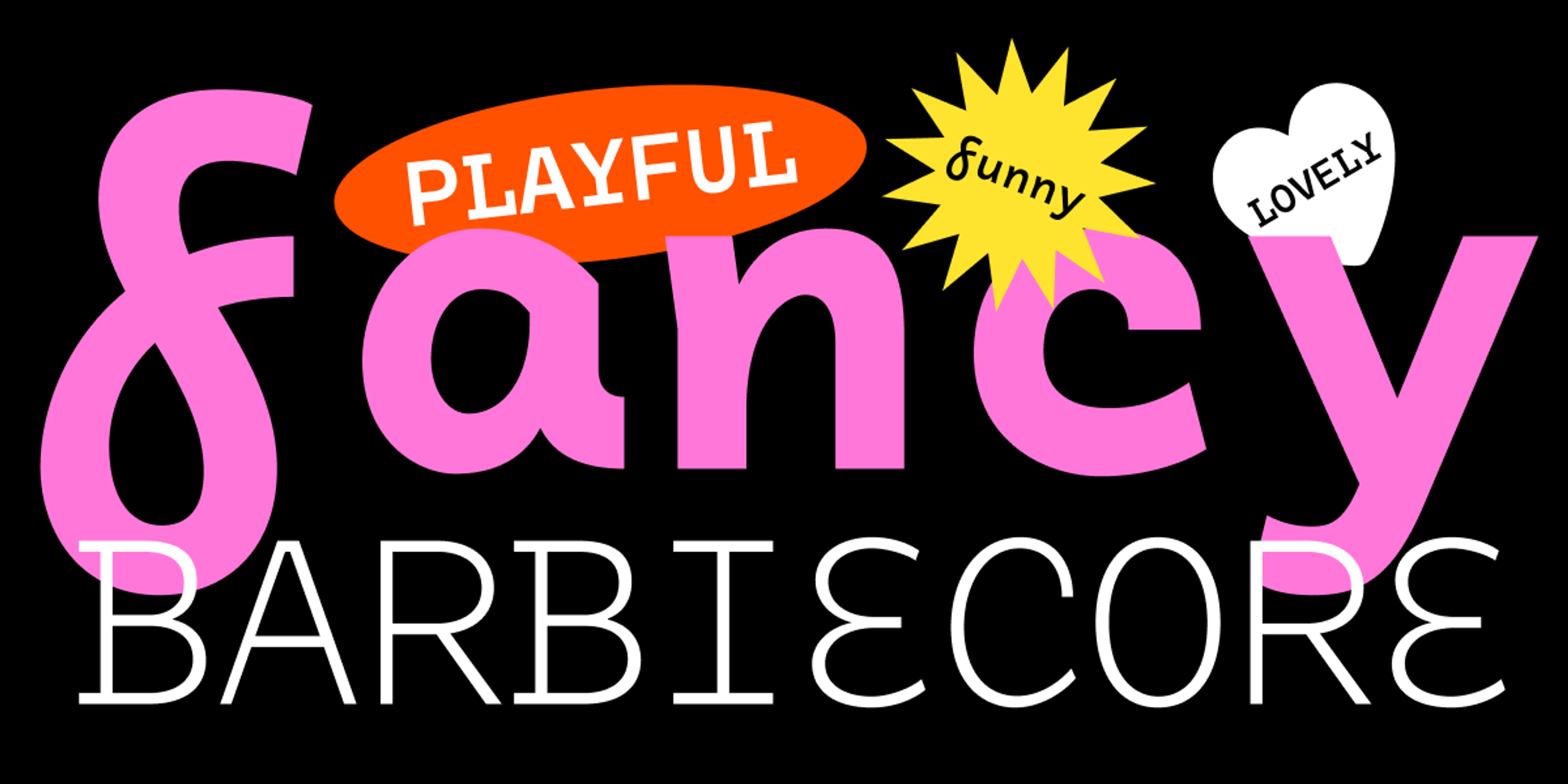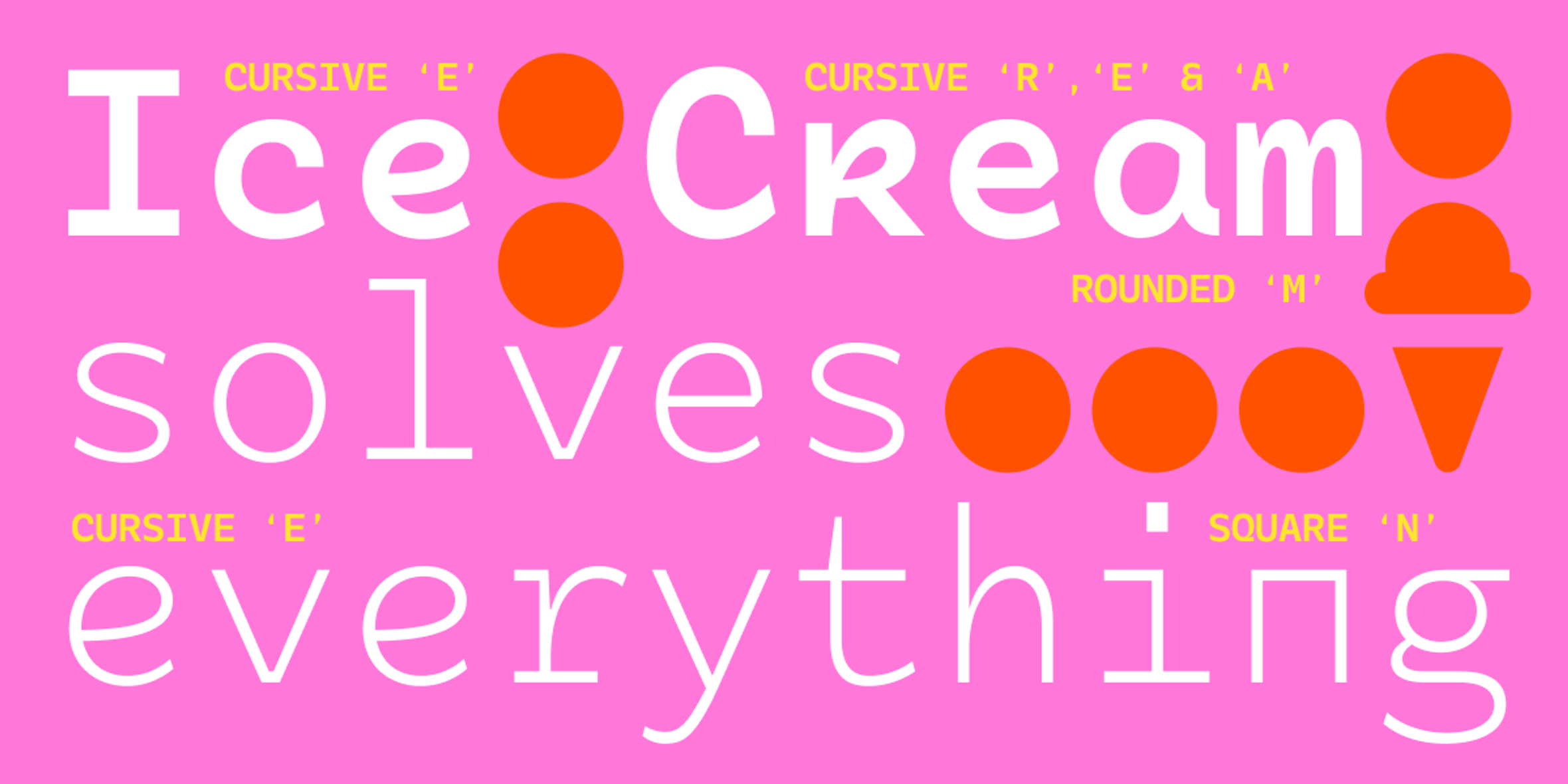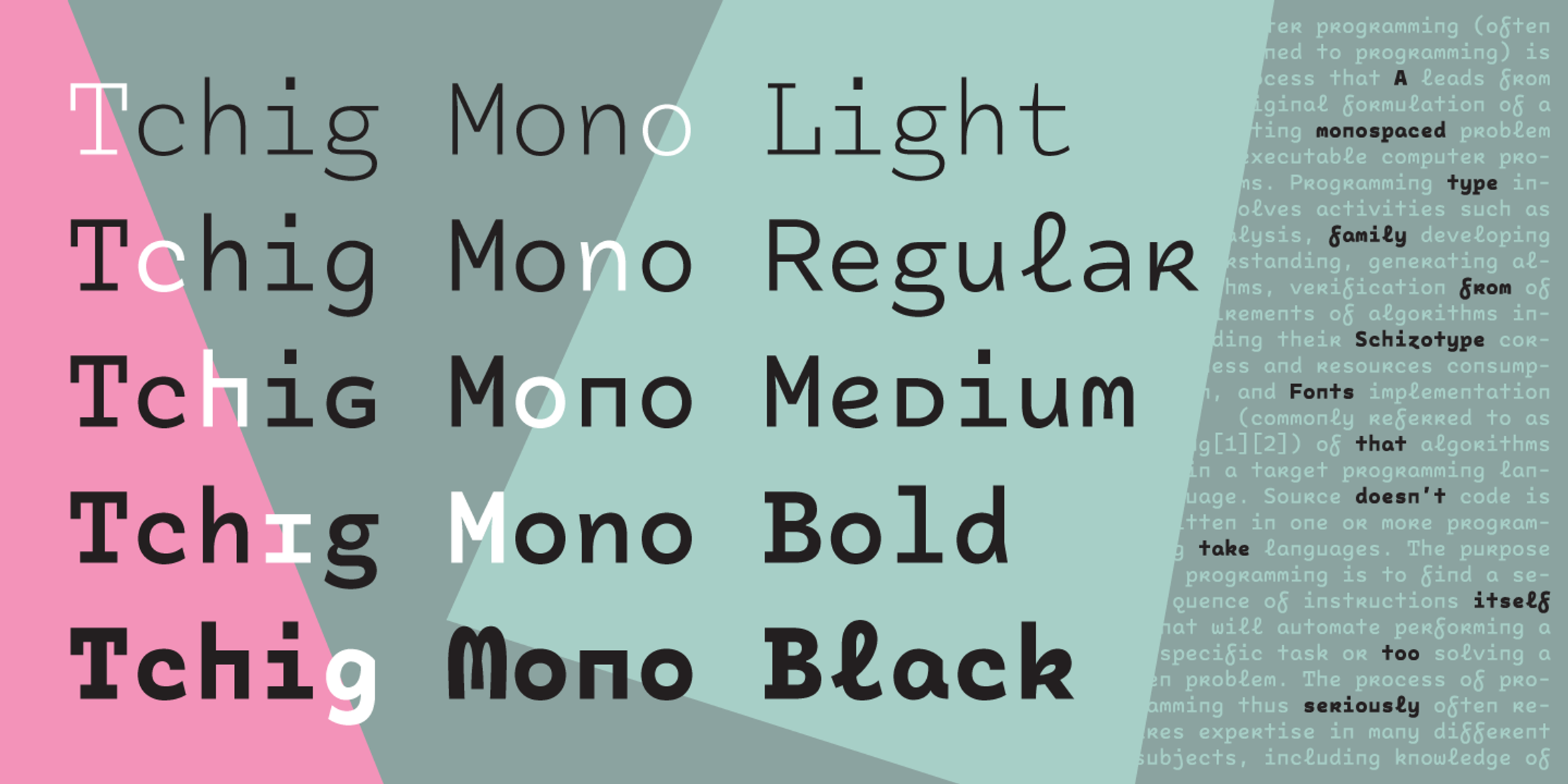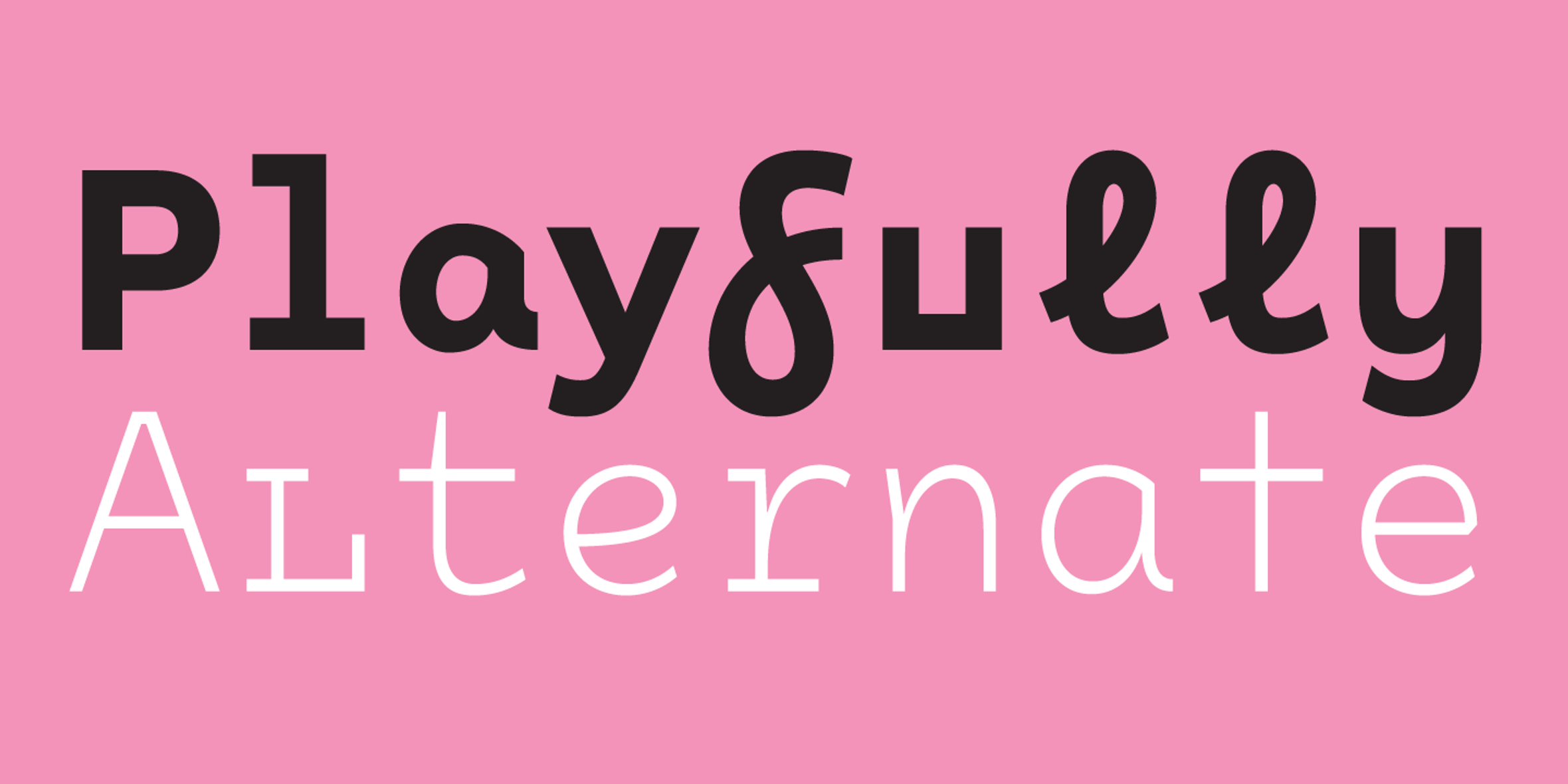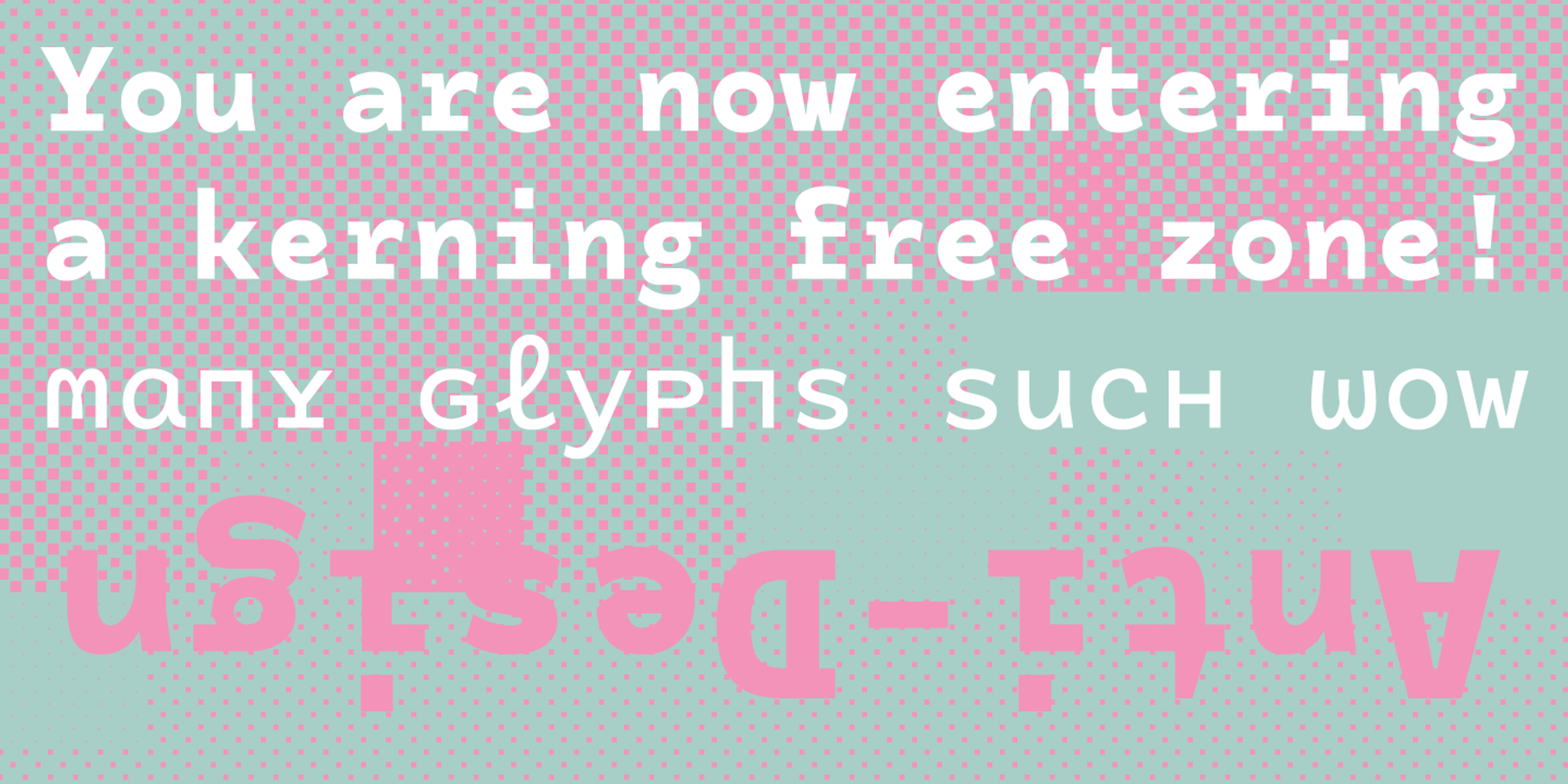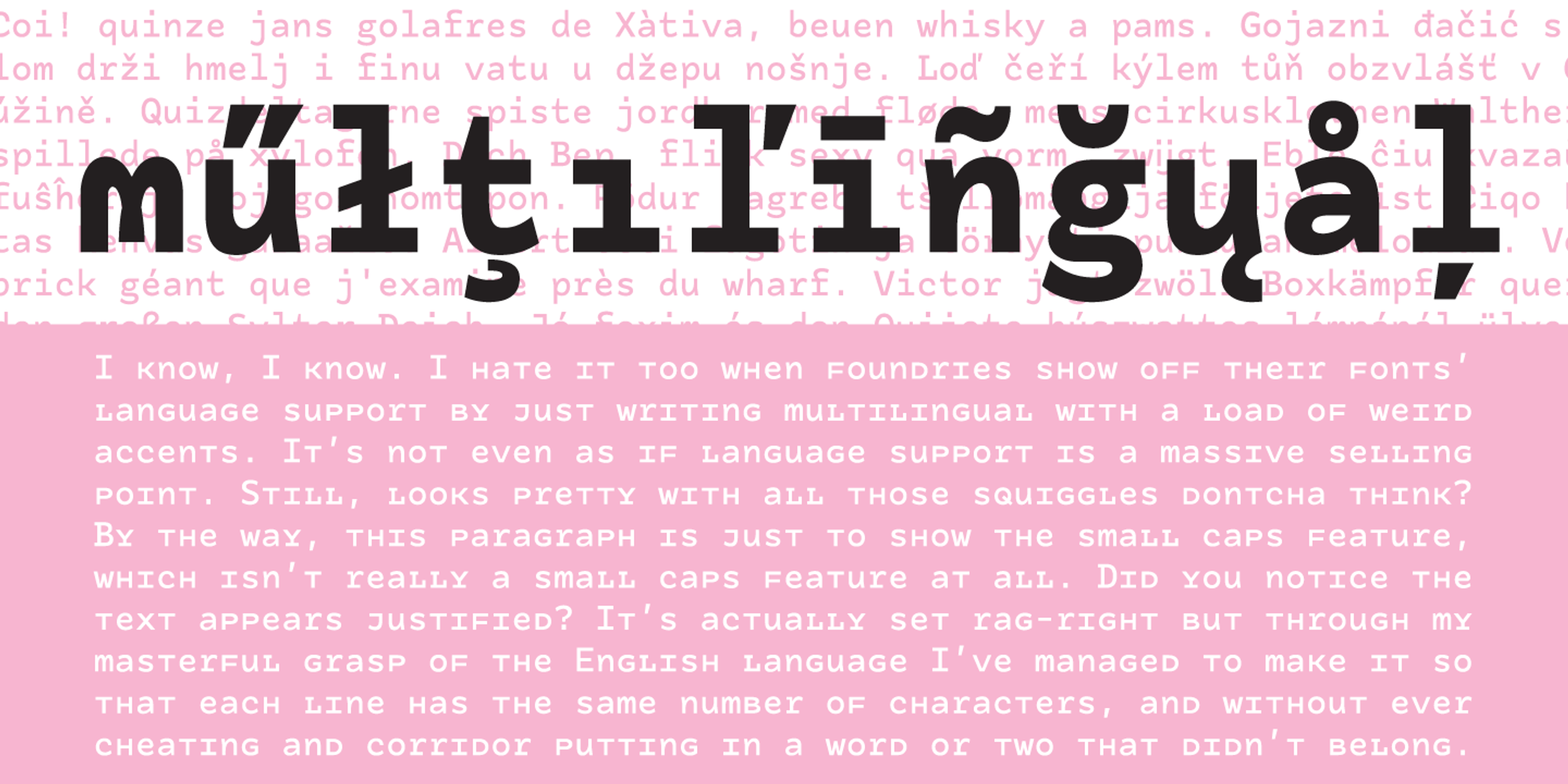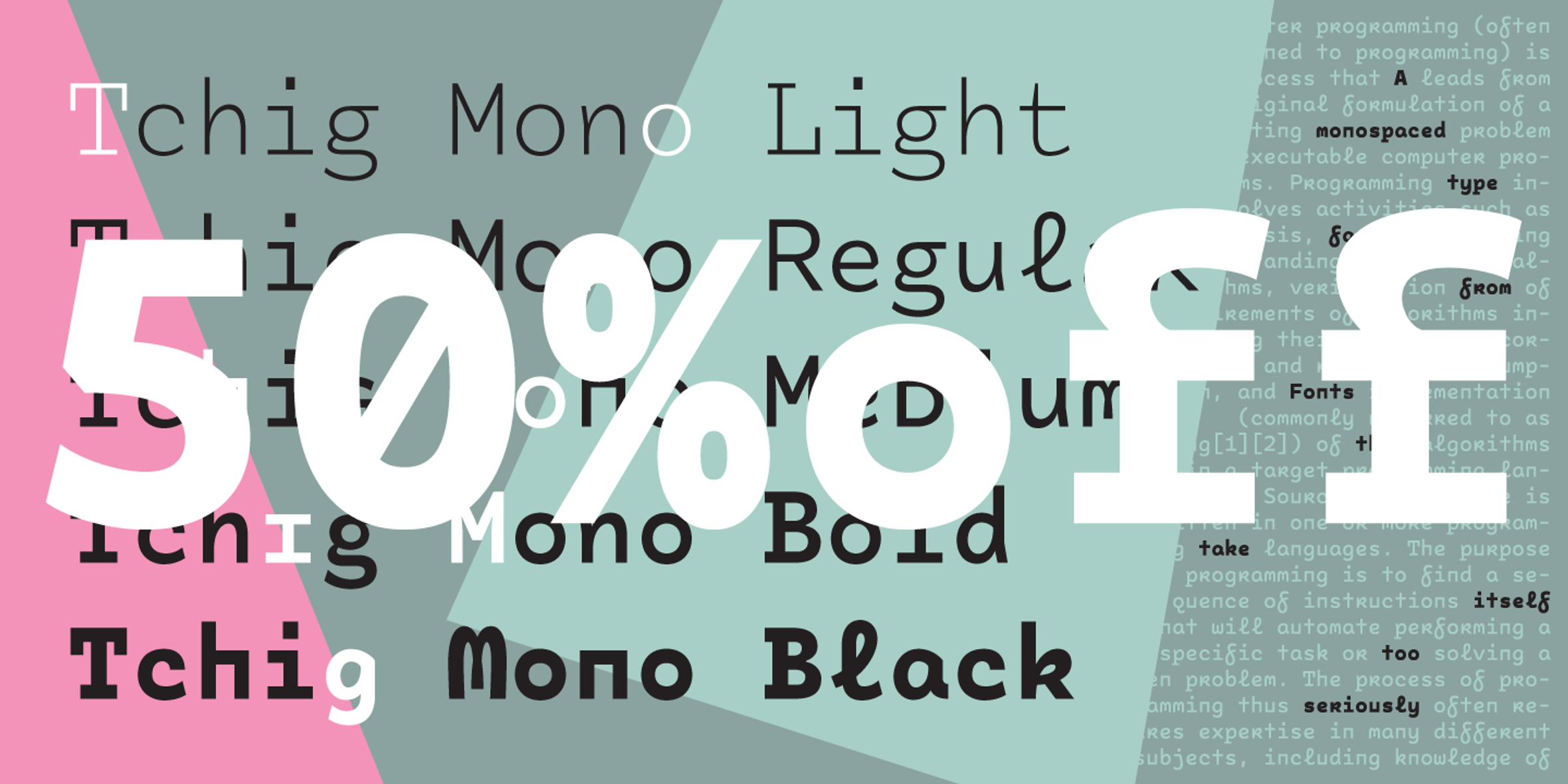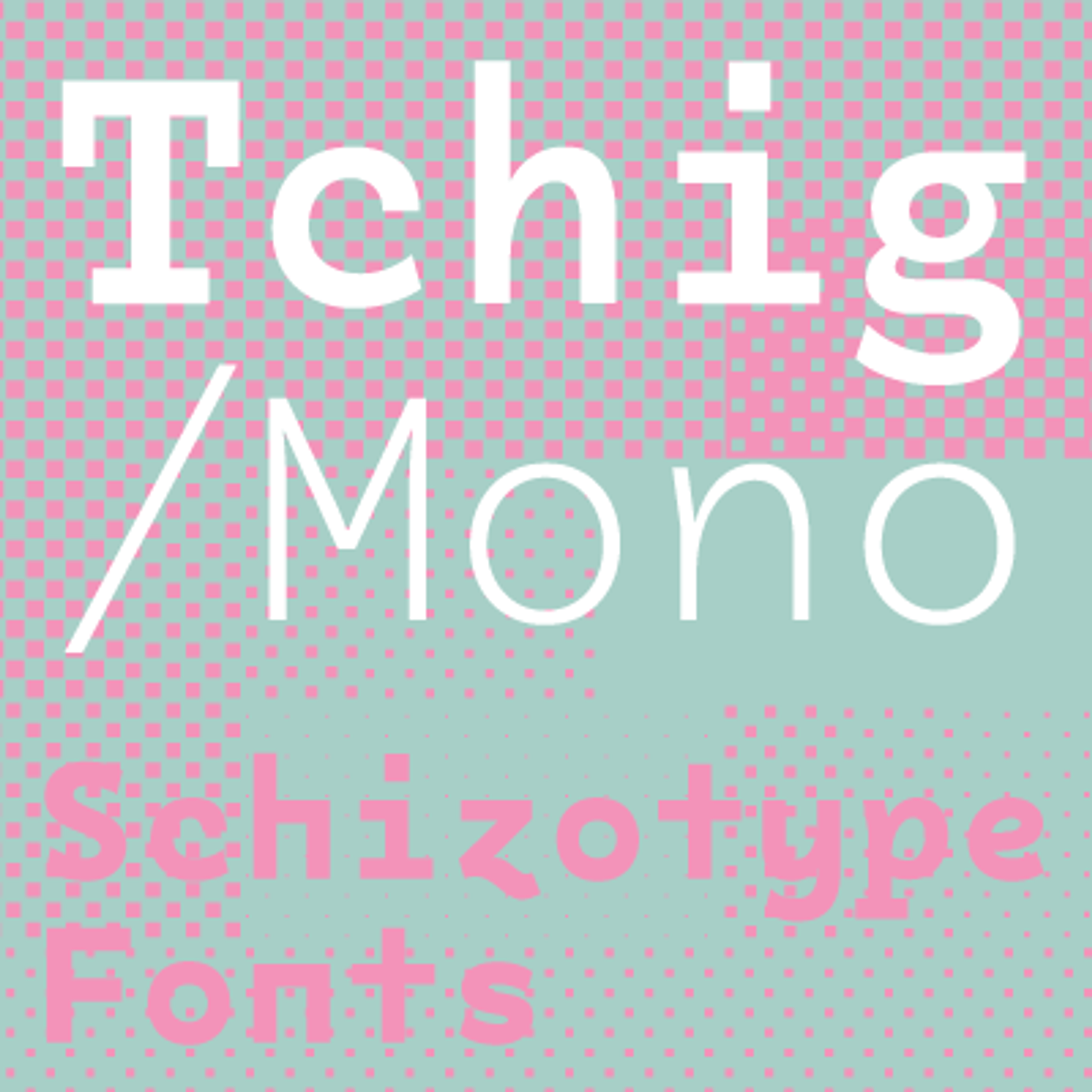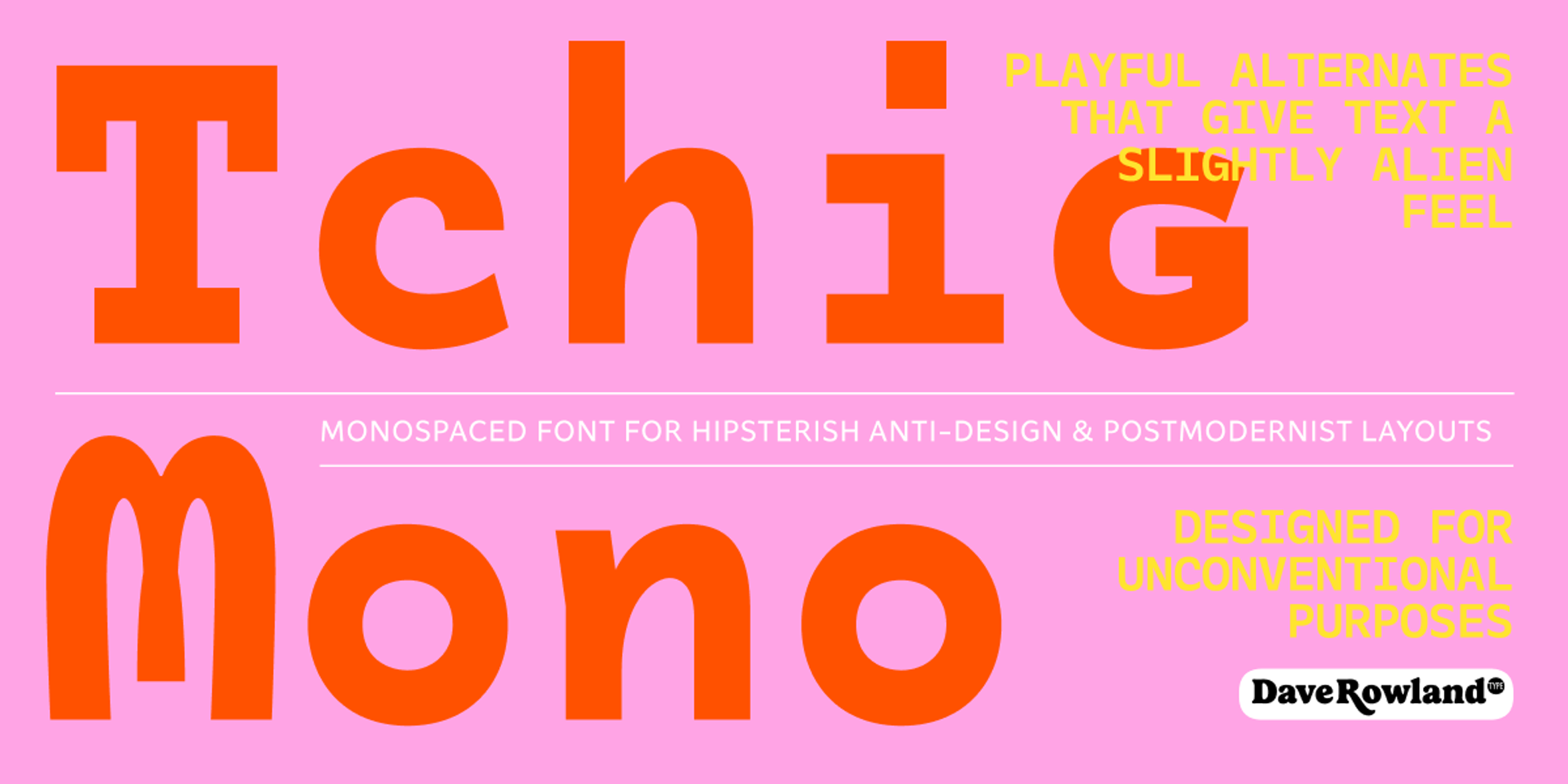
Tchig Mono Fonts
Tchig Mono
This is Tchig Mono, a monospaced font family not taking itself too seriously. It has a playful spirit with a few surprises. Stylistic sets offer cropped lowercase forms with a small-caps-like feel, plus a selection of alternates giving the text a slightly alien feel. Useful for coding and technical information? Sure! However, the more unorthodox shapes have a quirky vibe appropriate for postmodernist layouts, independent films, pop-up restaurants, and other out-of-the-box designs.
- Fractions
- Ordinal Numerals
- Small Capitals
- Stylistic Alternates